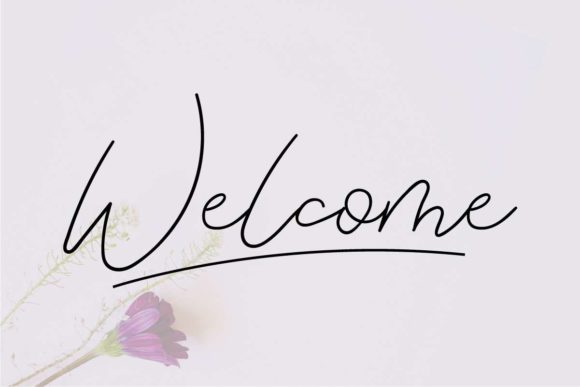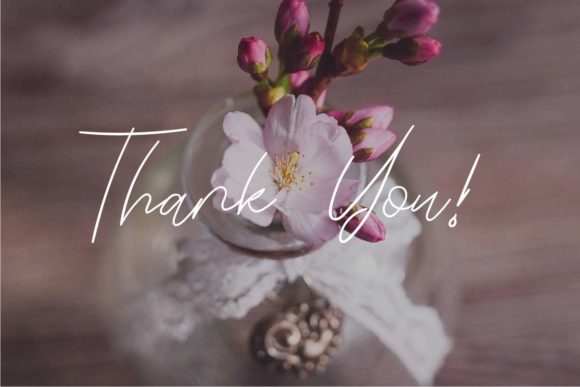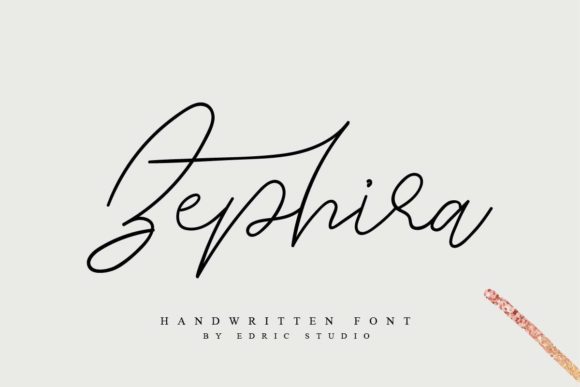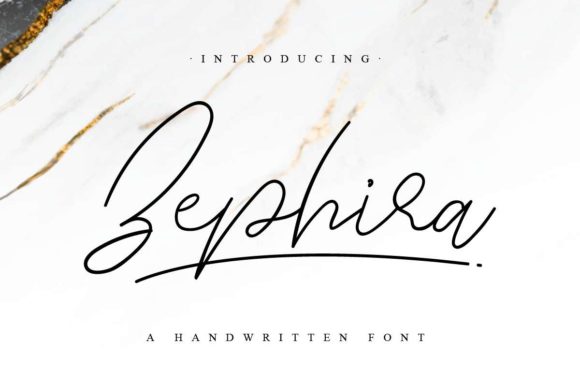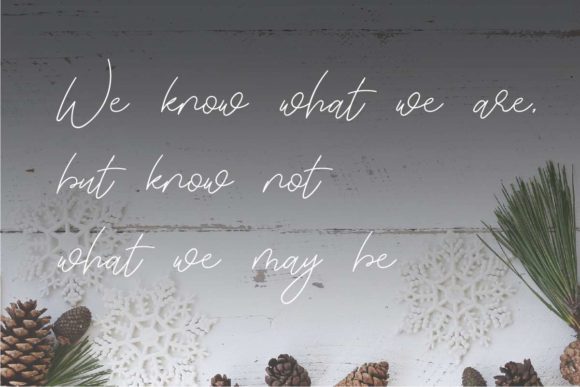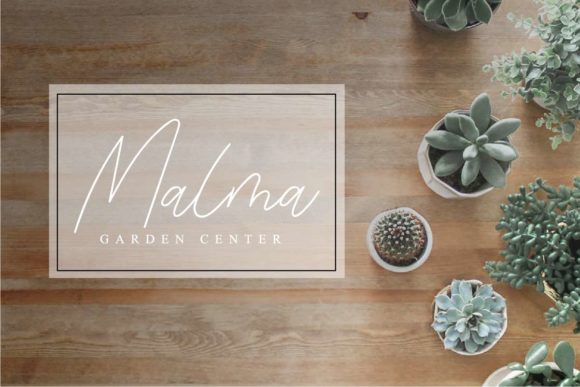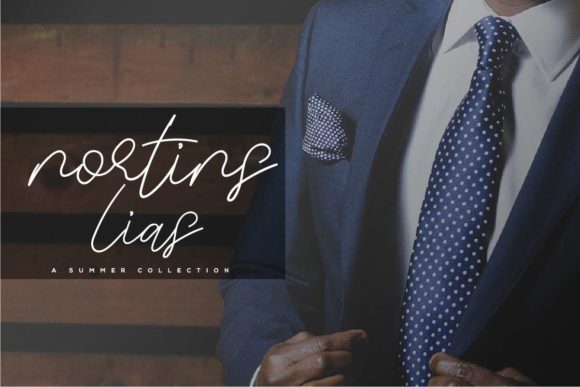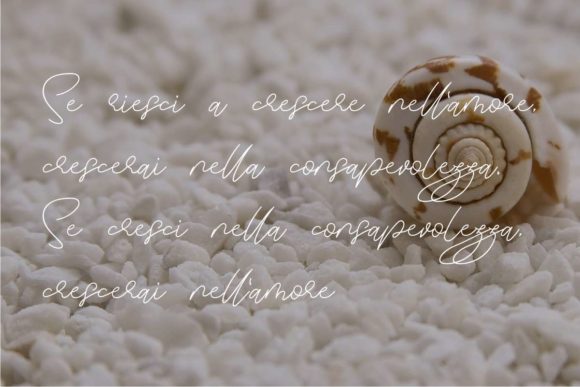
Zephira Font
About Zephira Font
Zephira feels modern, elegant and charming. This stunning signature font features wide letters and authentically drawn glyphs that will add a personal charm to any crafting project in an instant.